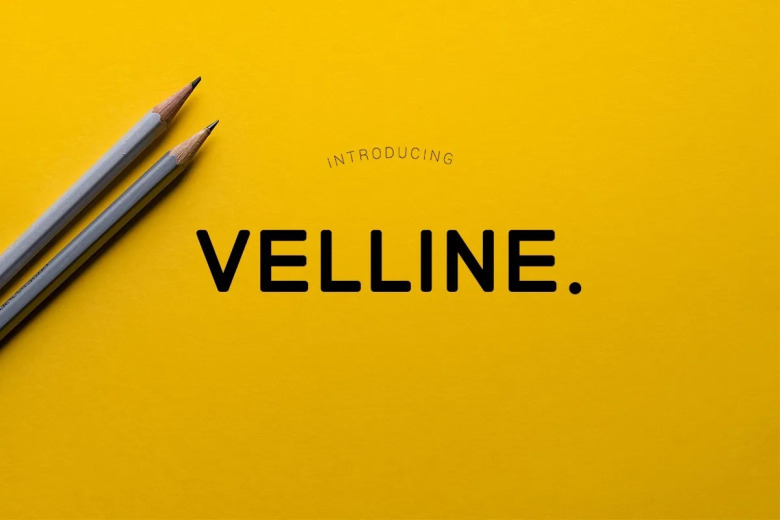
Velline Font
Velline, minimal and neat Sans serif font. This type has access to an extremely large family of glyphs, and that is why it can be easily matched to an incredibly large set of projects, so add it to your creative ideas and notice how it makes them stand out From branding projects, Logo design, Clothing Branding, product packaging, magazine headers or merely a stylish text overlay onto some background image.
Velline Sans Serif Font